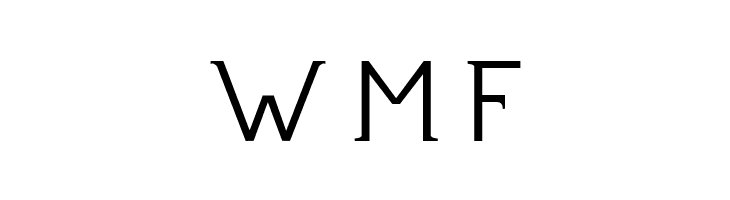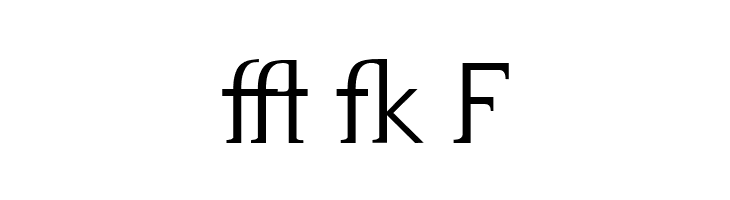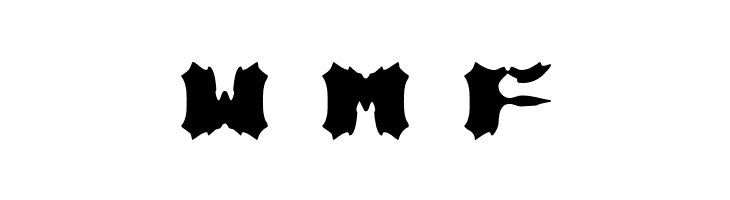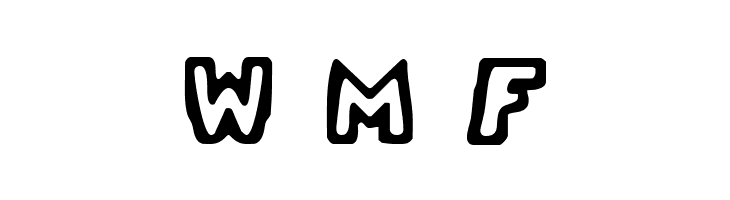
A modern, elegant font with clean lines and geometric structure.
A sophisticated serif font with high contrast and elegant serifs.
A bold, modern font with tall, narrow characters and a dramatic style.
A bold, narrow font with a modern, art deco flair.
A bold, modern font with tall, narrow characters and high contrast.
A bold, playful font with a three-dimensional outline and whimsical style.